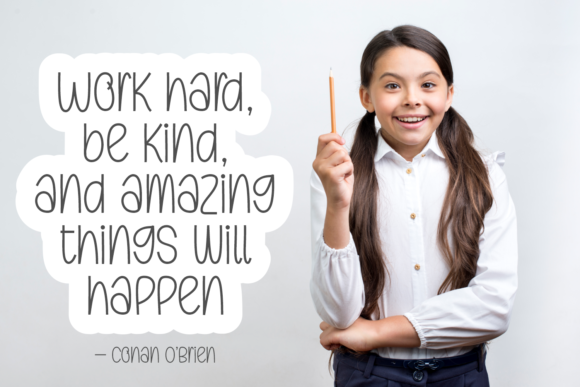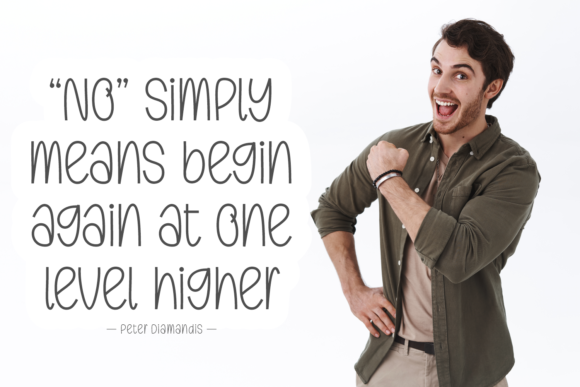
Sweet Diary Font
db-ku.com - Script & Handwritten -- Sweet Diary is a clean and cute handwritten font. It will look stunning on any poster, flyer or print.